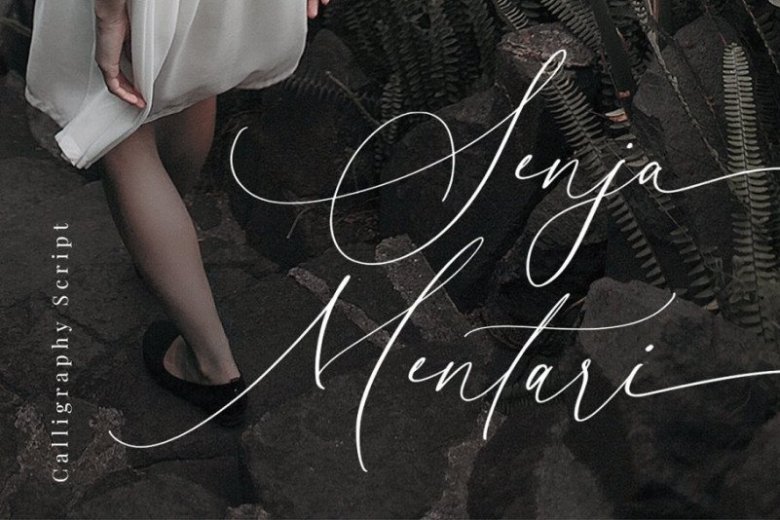
Senja Mentari Calligraphy Font
Senja Mentari is elegant modern calligraphy font inspired by delicate inky hand lettering, gorgeous wedding calligraphy and trending minimal branding designs.
This beautiful font pair is for those who are needing of elegance and stylish for their designs and particularly well suited for wedding invitations, cards and feminine branding.